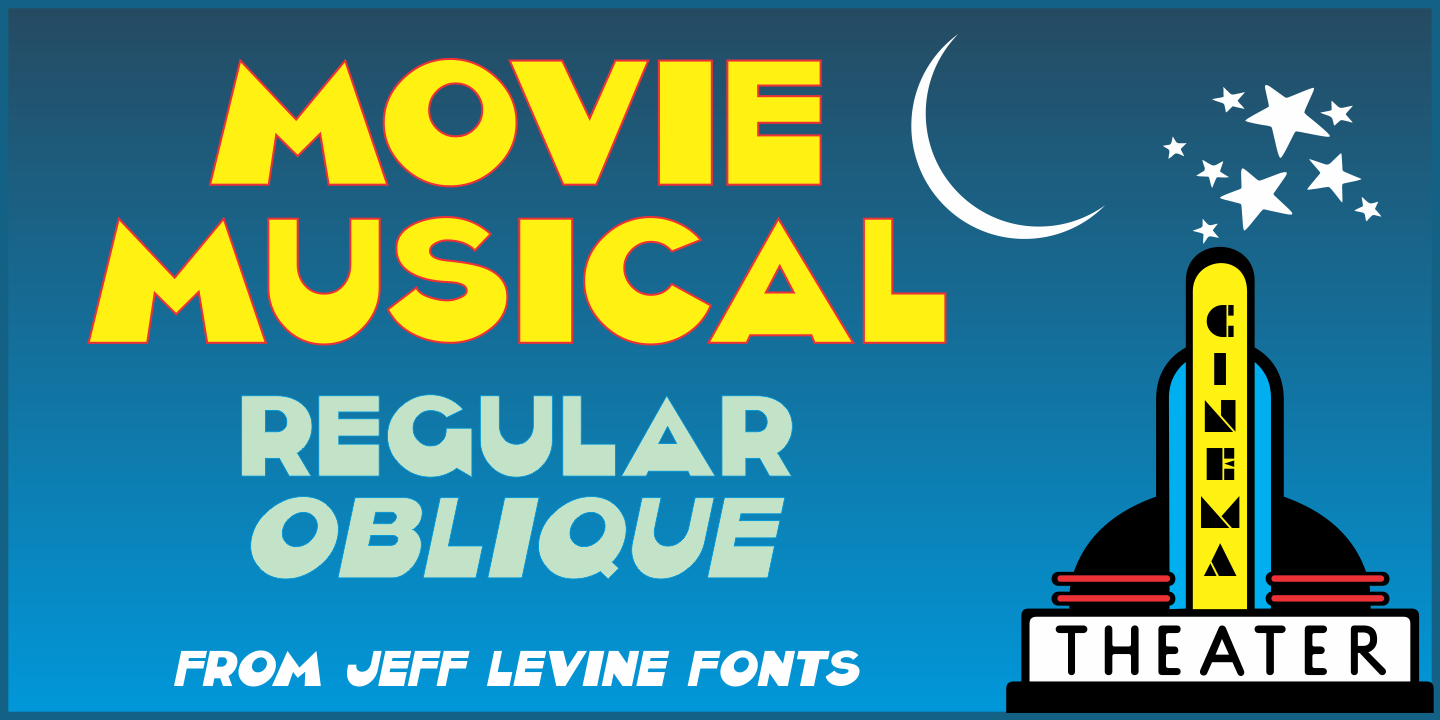
The Movie Musical JNL Font is incredibly versatile, making it a captivating choice for a wide array of design projects that aim to evoke the golden age of Hollywood, classic theater, and the vibrant energy of vintage musicals. Imagine it gracing the posters for theatrical productions, adding a sophisticated, nostalgic flair to retro-inspired branding for entertainment venues, or bringing a glamorous, marquee-style feel to invitations for special events. It's also fantastic for crafting unique album covers for big band or jazz artists, enhancing editorial layouts for historical entertainment magazines, and designing captivating signage that transports viewers back in time. Its inherent elegance and distinctive charm make it perfect for any project striving to communicate showmanship, timeless entertainment, and an undeniable sense of dramatic flair.
What makes Movie Musical JNL Font so exciting is its unique ability to capture the bold, decorative spirit of pre-digital film titles and Broadway playbills. It often features strong, geometric forms with elegant curves, or a distinctive, stylized construction that gives it an immediate sense of vintage grandeur and classic spectacle. This font doesn't just display text; it performs, making your message feel iconic, glamorous, and deeply evocative of a bygone era. Its balance of striking visual appeal and functional clarity ensures that your designs are not only eye-catching but also effectively convey their intended message. It's a typeface that brings an atmosphere of timeless entertainment and theatrical brilliance to your typography, guaranteeing your projects leave a dazzling and memorable impression.
The Movie Musical JNL Font family typically includes a range of weights and stylistic alternatives to provide extensive creative flexibility. While specific options can differ, you can generally expect to find alternatives like Regular, Bold, and potentially an Outline or Shadow version that enhances its marquee-like appearance. These different weights and stylistic sets allow you to create dynamic visual hierarchies and add nuanced artistic flair to your typography, ensuring a cohesive and beautifully crafted design. This comprehensive family support ensures that whether you need a strong, commanding headline or a subtle, elegant accent, Movie Musical JNL Font Free Download offers the perfect elements to bring your cinematic vision to life.